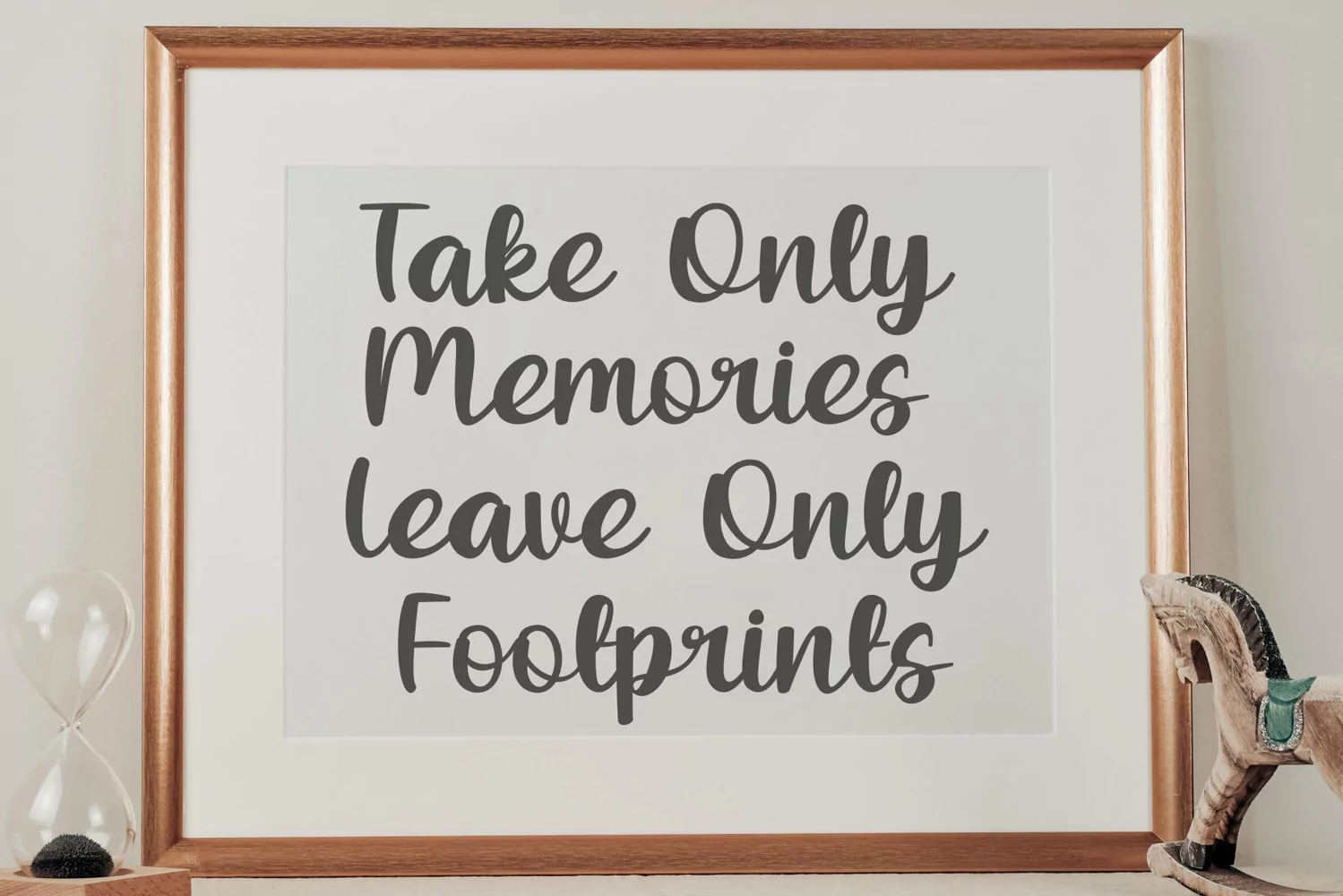
Sprinkles Cupcakes is a Handwritten Script font. It has a elegant, and modern look which can be used for logos, branding, invitations, stationary, wedding designs, social media posts, and every other design.